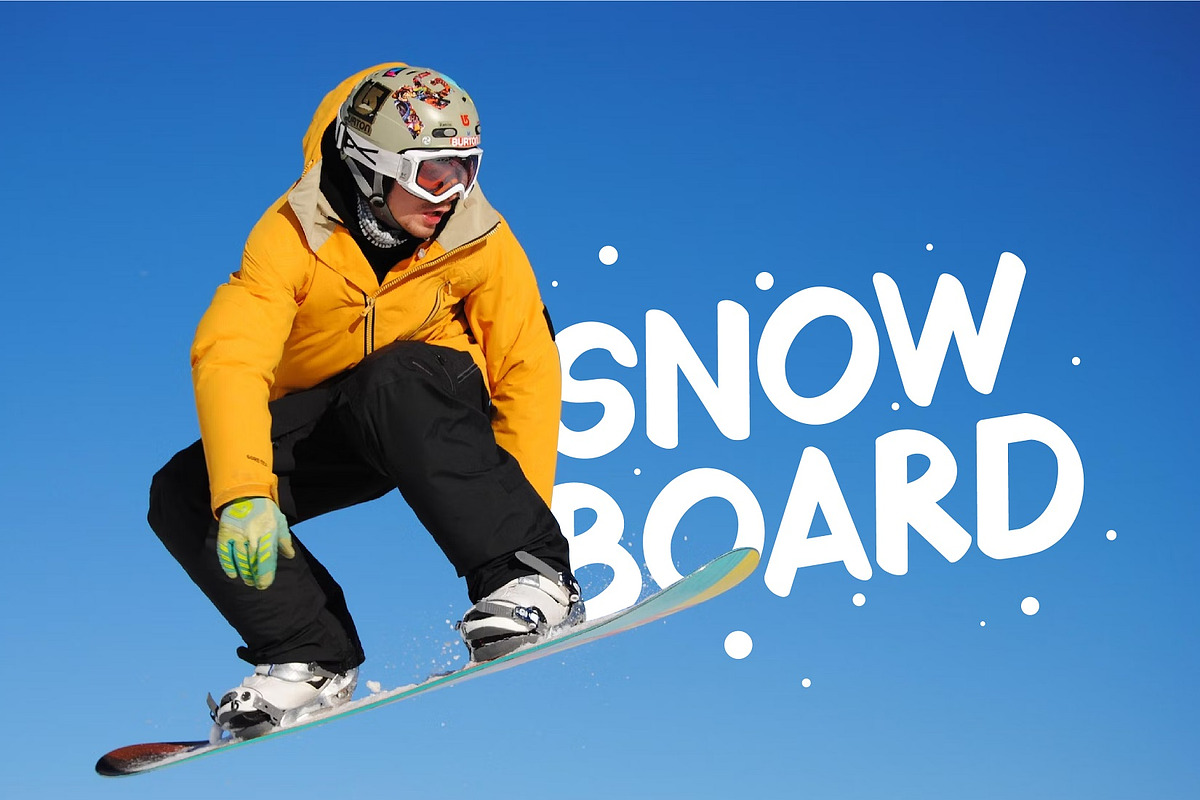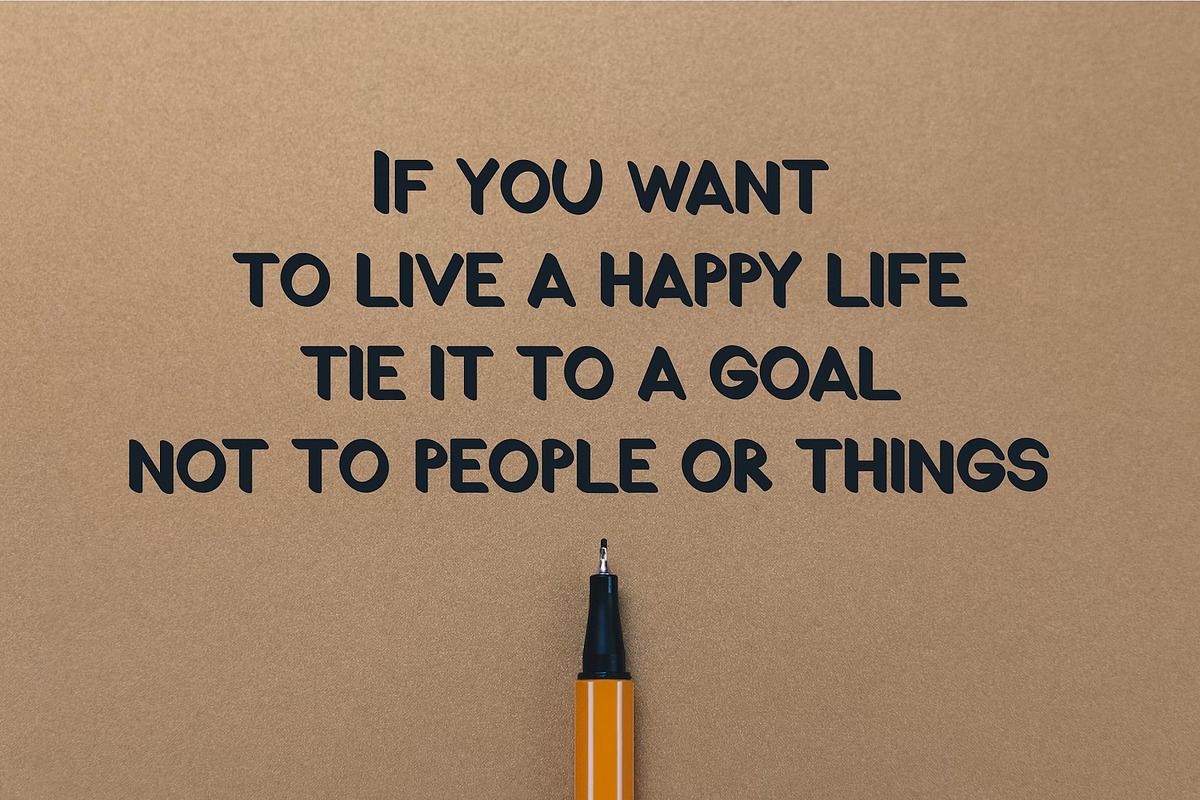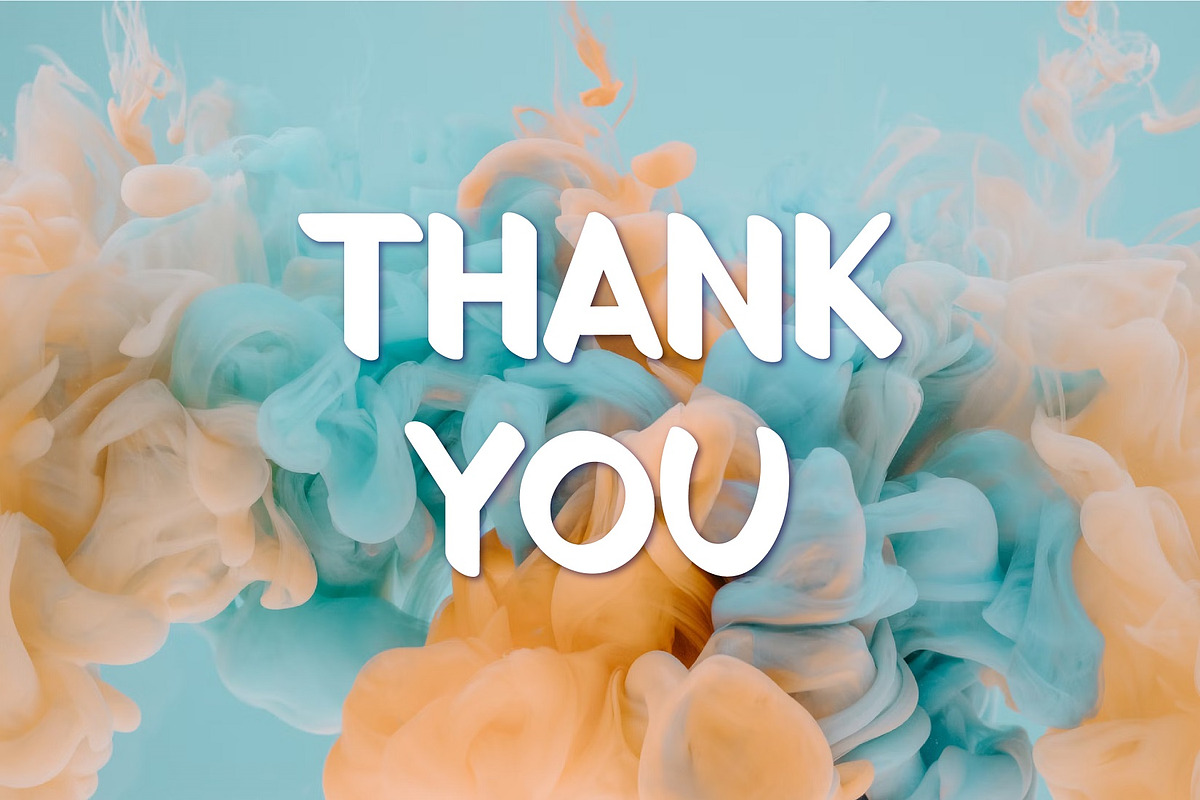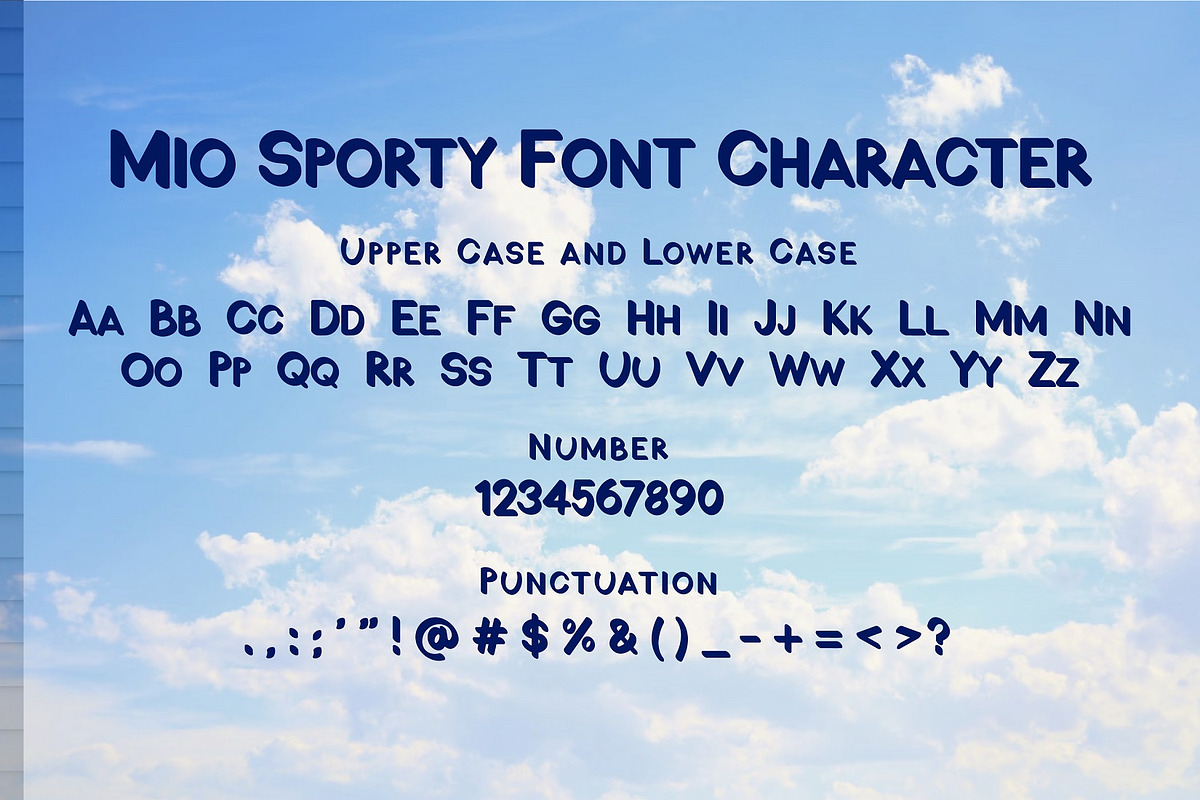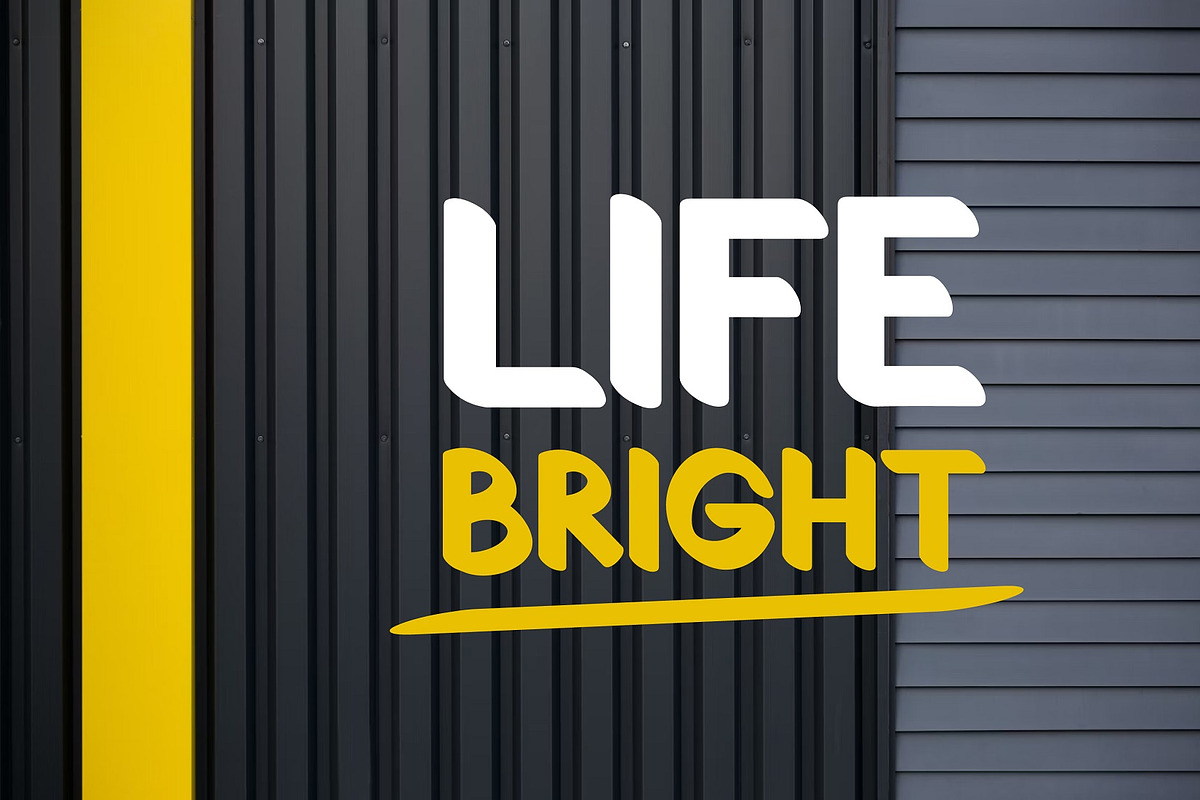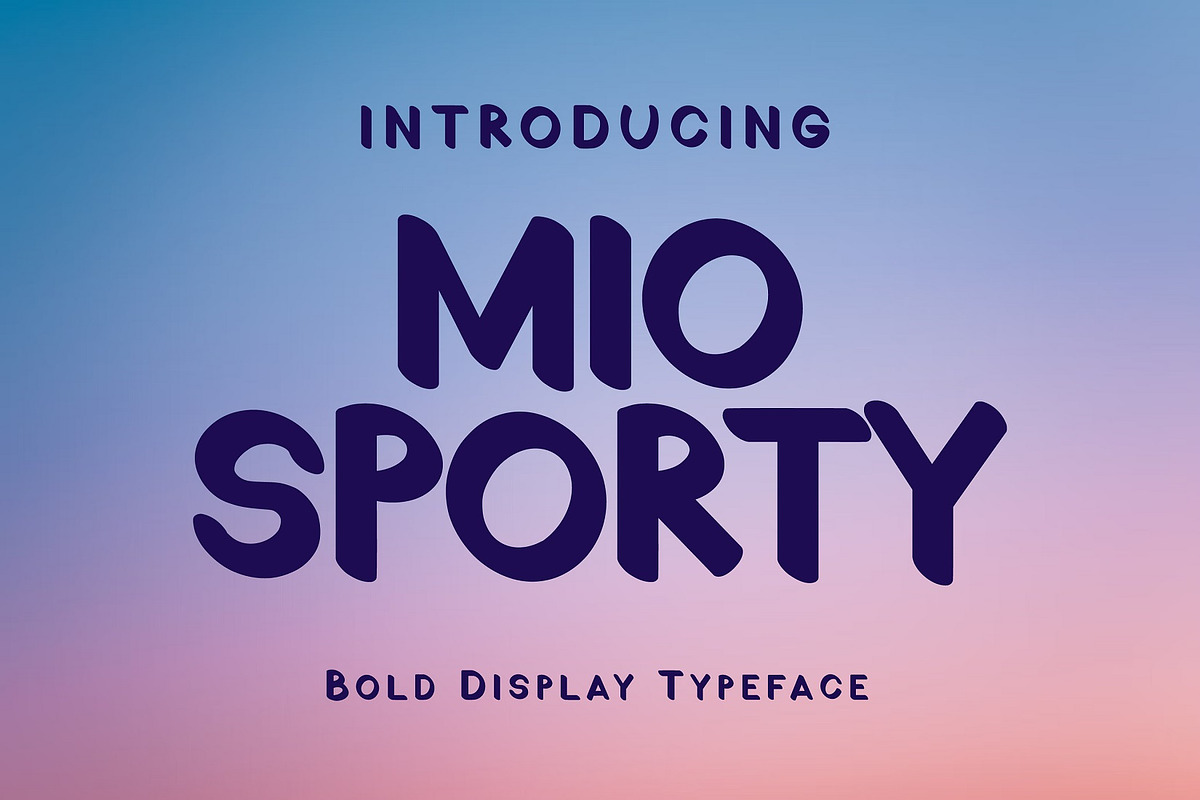
Mio Sporty Bold Display Type Face
Introducing Mio Sporty - Bold Display Font
Mio Sporty is a bold display font. Perfect for branding projects, logo, wedding designs, social media posts, advertisements, product packaging, product designs, label, photography, watermark, invitation, stationery and any projects that need handwriting taste.